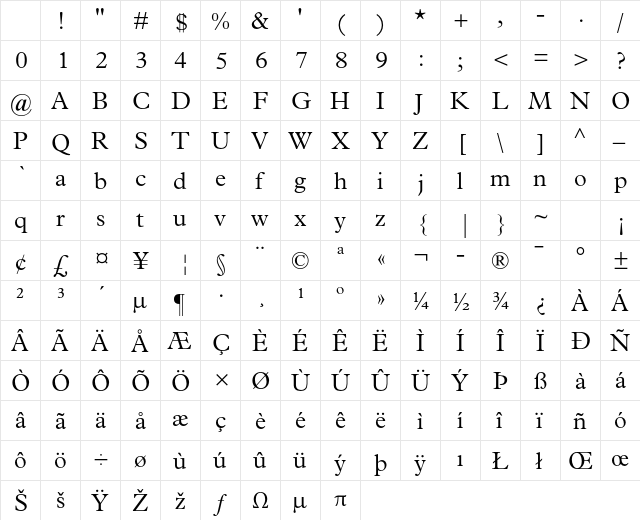
Plantin Std Light
Designer: F.H. Pierpont
Complete Plantin Std Light glyph index. Displaying only characters natively supported by Plantin Std Light font.
Design Context for Plantin Std
Plantin Std is a composed and adaptable typeface that performs quietly and consistently across a wide range of design contexts. Its slender proportions lend an understated elegance to any composition.